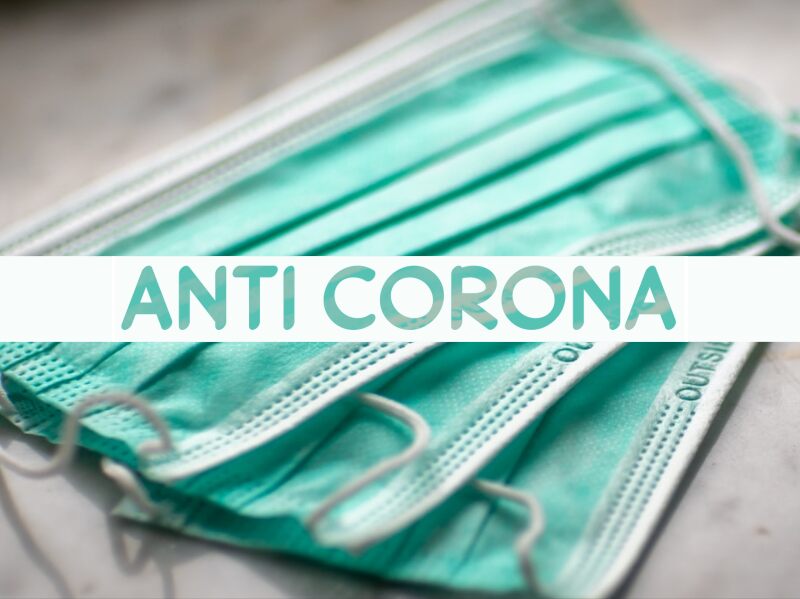
Introducing Anti Corona, a captivating display font expertly designed by wep. This comic-style typeface is perfect for an array of projects that demand a touch of whimsy and playfulness. Whether it's designing eye-catching posters, creating engaging social media graphics, or crafting attention-grabbing packaging, Anti Corona will infuse your work with its unique charm. With its bold and lively character, this font is an ideal choice for children's books, animated videos, gaming logos, and any creative endeavor that calls for a burst of joyful energy. Let Anti Corona elevate your design game to new heights!
Anti Corona